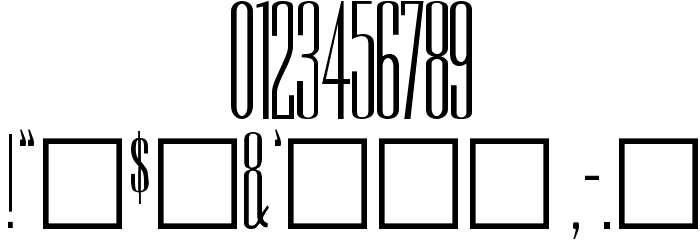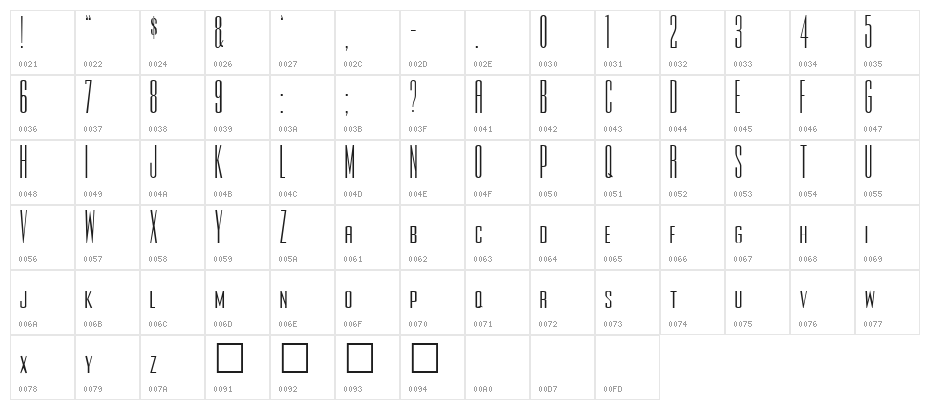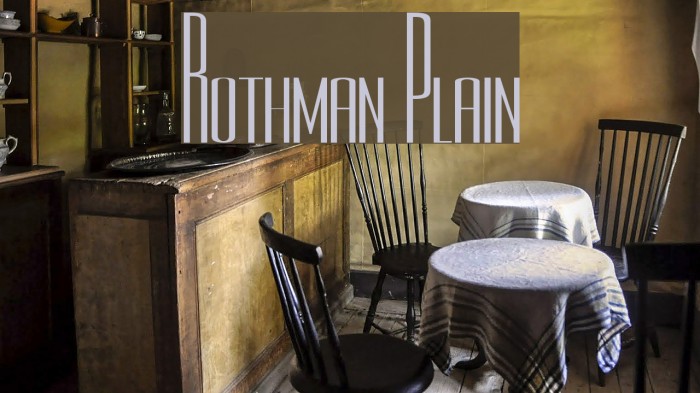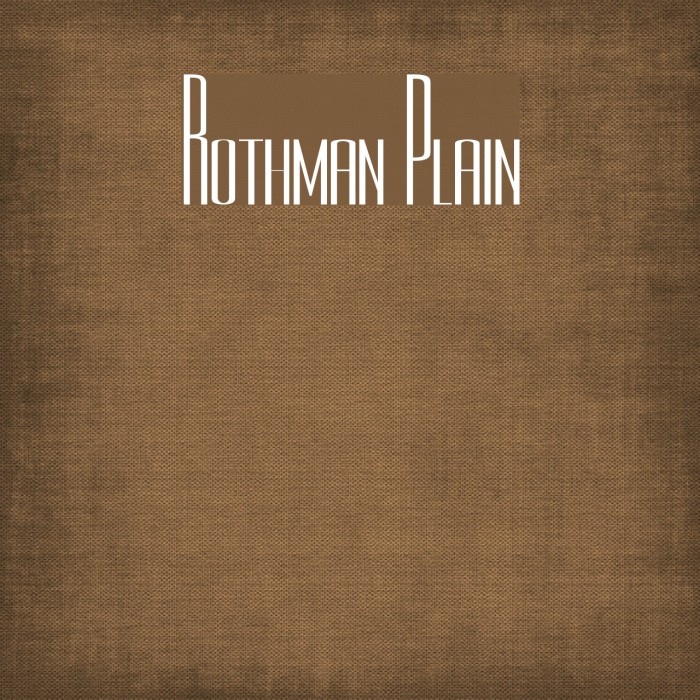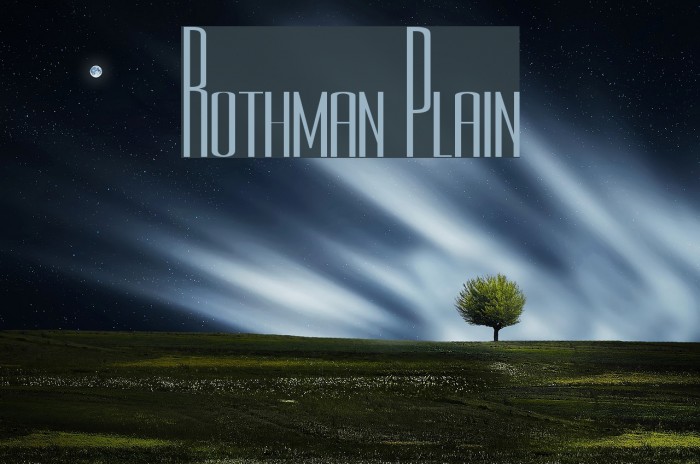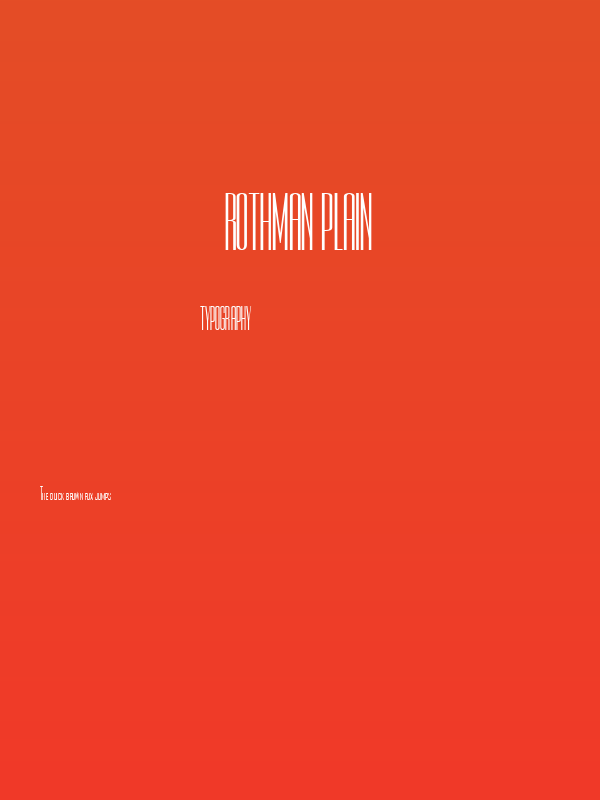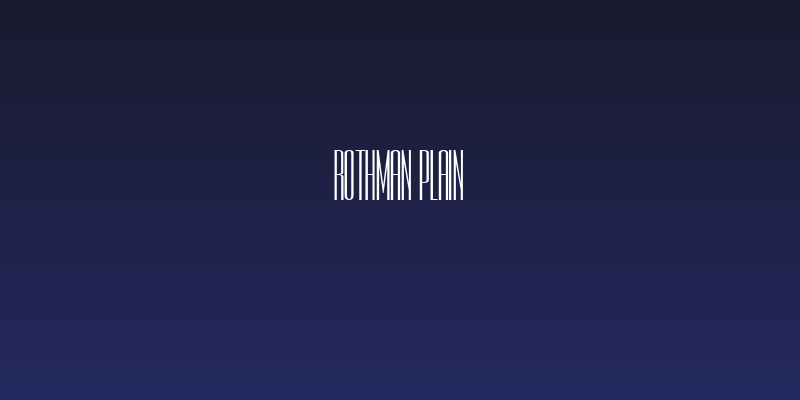
Rothman Plain Font
Rothman Plain Description
This font features a tall, narrow design with a distinctly modern and elegant appearance. The uppercase letters are elongated and sleek, giving a sophisticated and stylish look. The lowercase letters maintain the same narrow structure, ensuring consistency throughout the typeface. Numbers are similarly tall and slender, aligning with the overall aesthetic. The special characters are designed to complement the letters, maintaining the same vertical emphasis. This font's unique style makes it ideal for projects that require a touch of modern elegance and sophistication.
| Proposed Projects | Ideal for luxury branding, fashion magazines, high-end product packaging, and modern editorial layouts. |